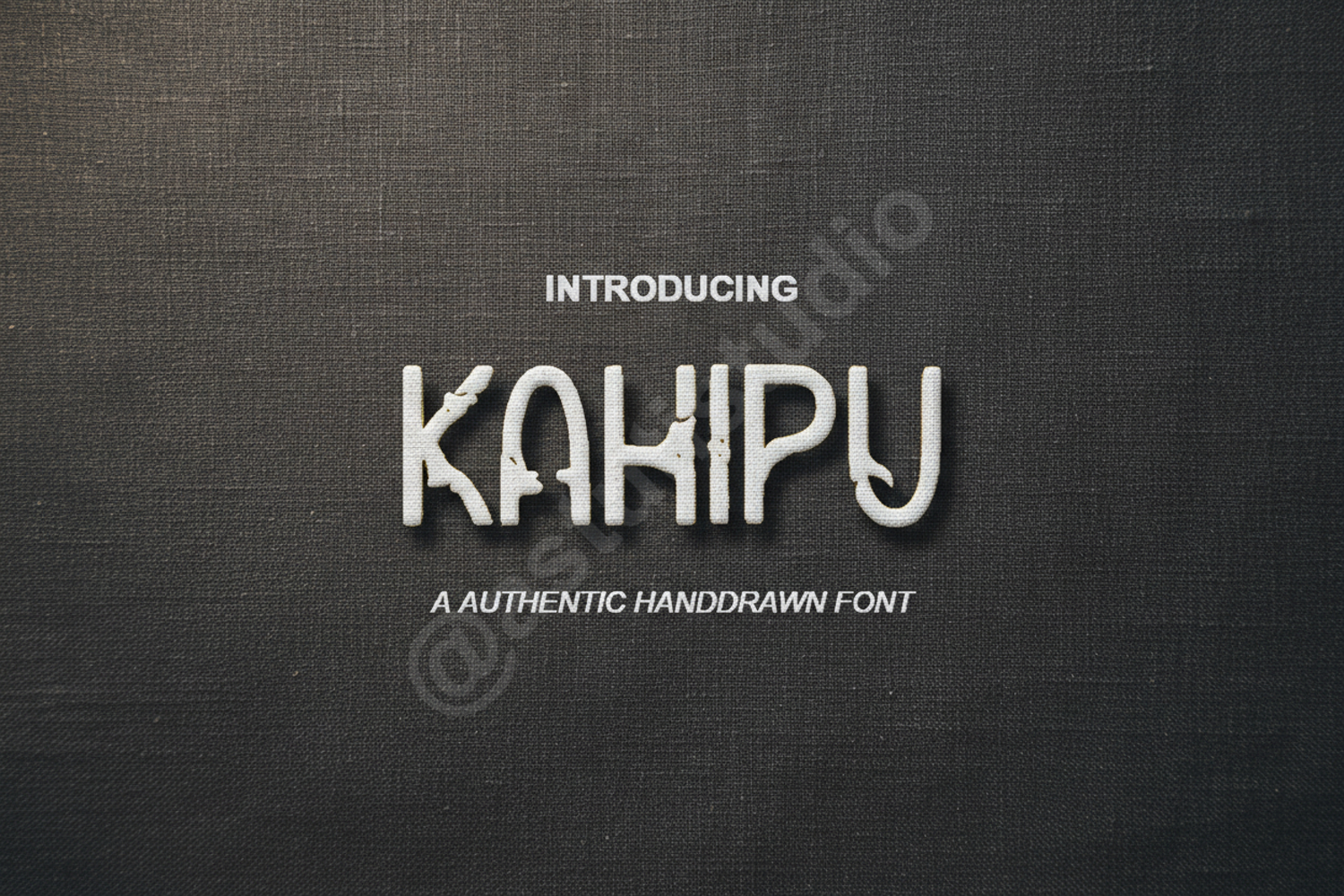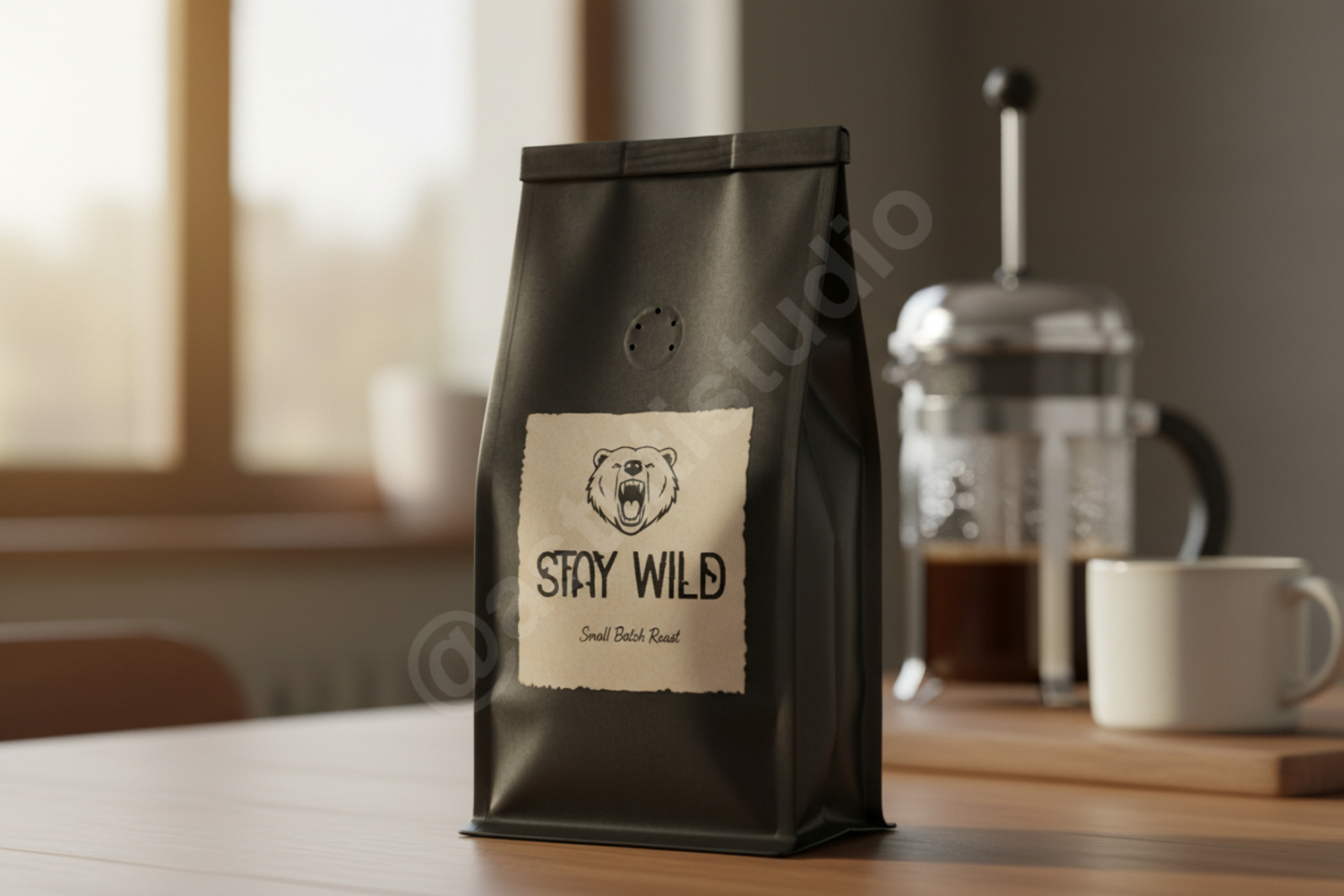
Kahipu - Sophisticated Modern Serif Typeface
Kahipu
Kahipu is a premium serif font that exudes sophistication and timeless charm. Meticulously crafted to balance classic aesthetics with a contemporary touch, Kahipu is the perfect choice for designers looking to elevate their creative projects with a sense of luxury and clarity. Its clean lines and unique character shapes make it highly versatile for both digital and print media, ensuring your work stands out with professional polish.
- Full set of uppercase and lowercase letters
- Comprehensive numerals and punctuation
- Extensive multilingual support for global projects
- Branding and Identity: Create memorable logos and high-end brand marks.
- Editorial Design: Perfect for sophisticated magazine headers and stylish body text.
- Wedding Stationery: Add an elegant, timeless touch to invitations, save-the-dates, and menus.
- Social Media: Elevate your digital presence with high-end typography for Instagram and Pinterest graphics.
- Product Packaging: Ideal for luxury cosmetics, fashion labels, and premium lifestyle brands.